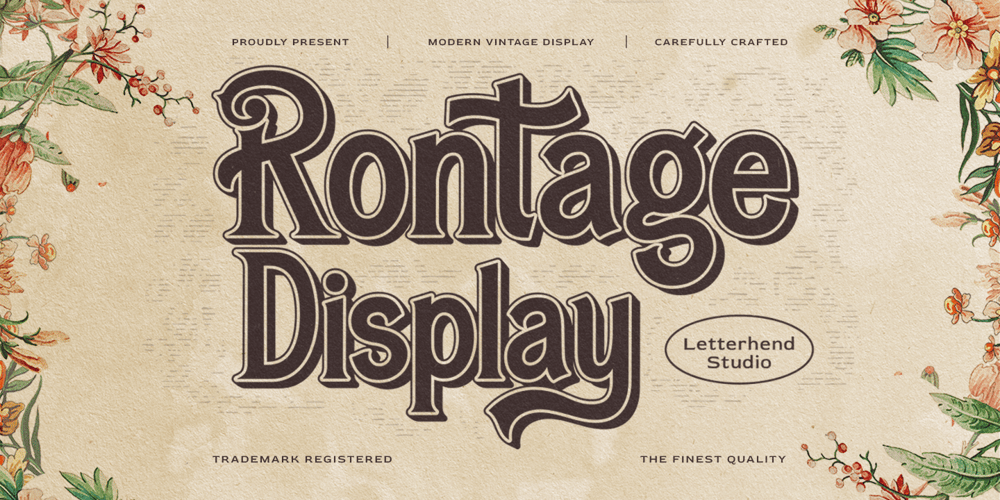
Rontage Font Family was designed by Hendry Juanda and published by Letterhend. Rontage contains 1 styles and family package options. Rontage Display is a serif display typeface with a touch of vintage look and feel. The stroke with swirls really make it looks nostalgic. This type of font perfectly made to be applied especially in logo, headline, signage and the other various formal forms such as invitations, labels, logos, magazines, books, greeting / wedding cards, packaging, fashion, make up, stationery, novels, labels or any type of advertising purpose.Features : uppercase & lowercase numbers and punctuation multilingual alternates / swashes and ligatures PUA encoded We highly recommend using a program that supports OpenType features and Glyphs panels like many of Adobe apps and Corel Draw, so you can see and access all Glyph variations.